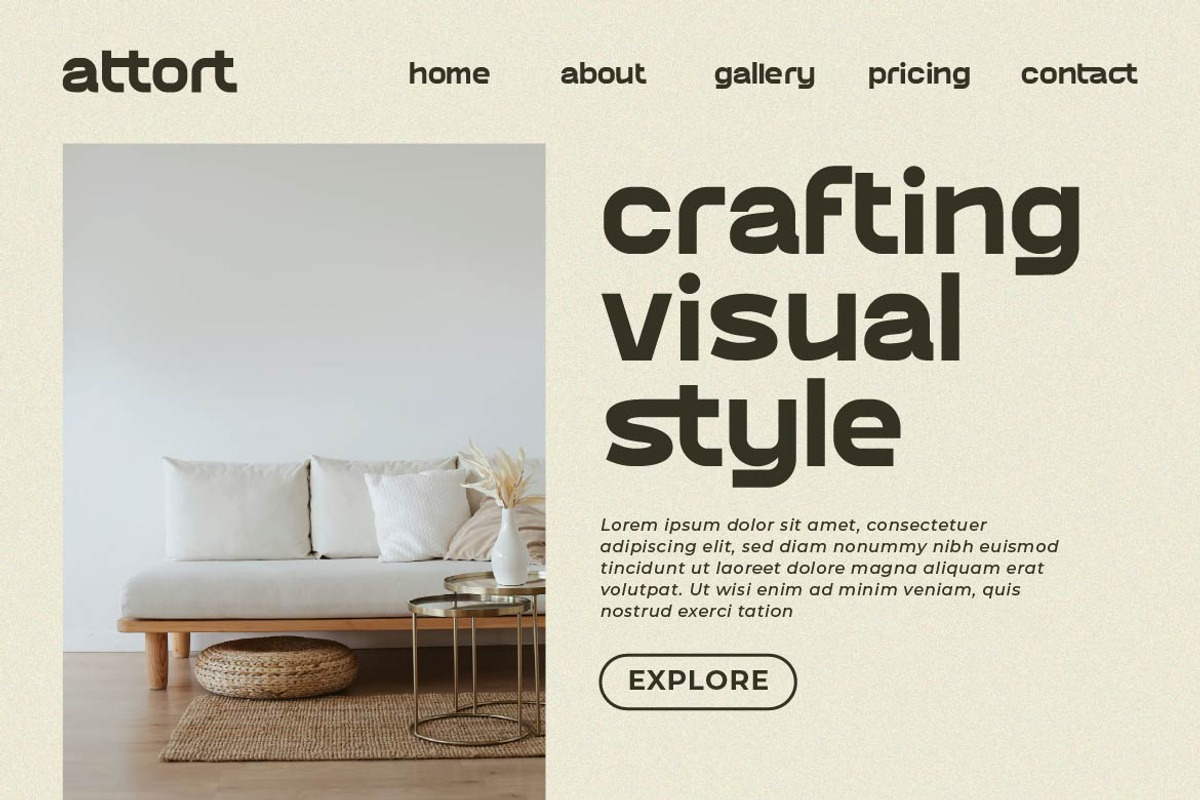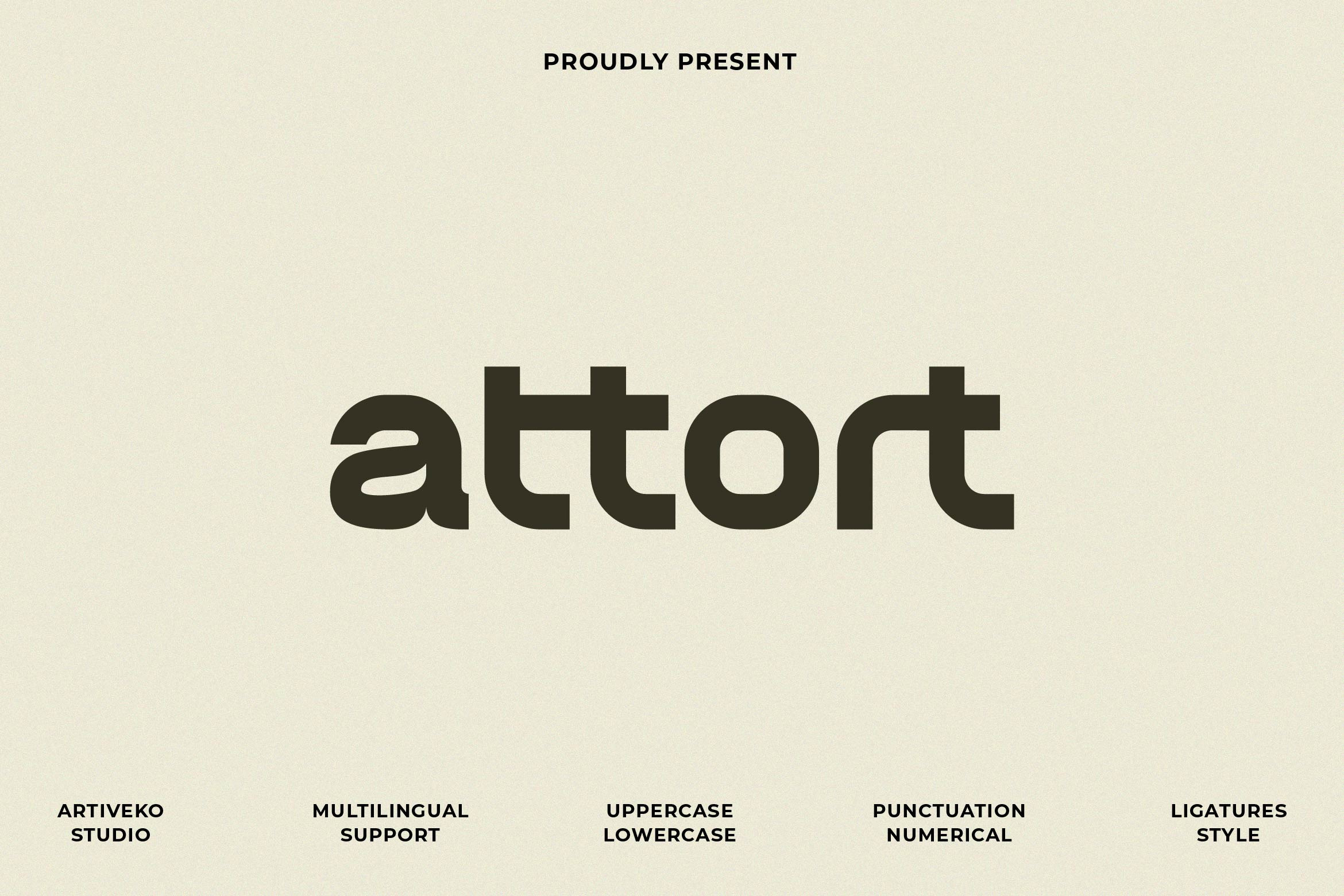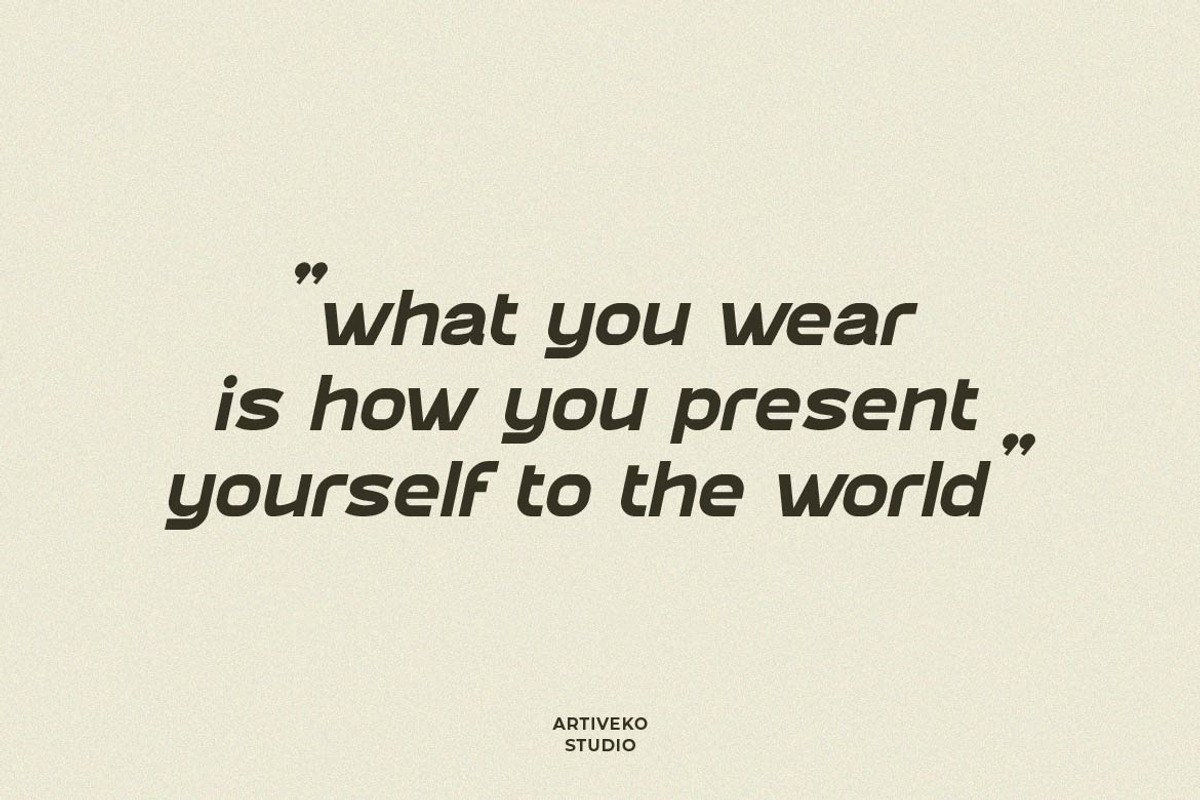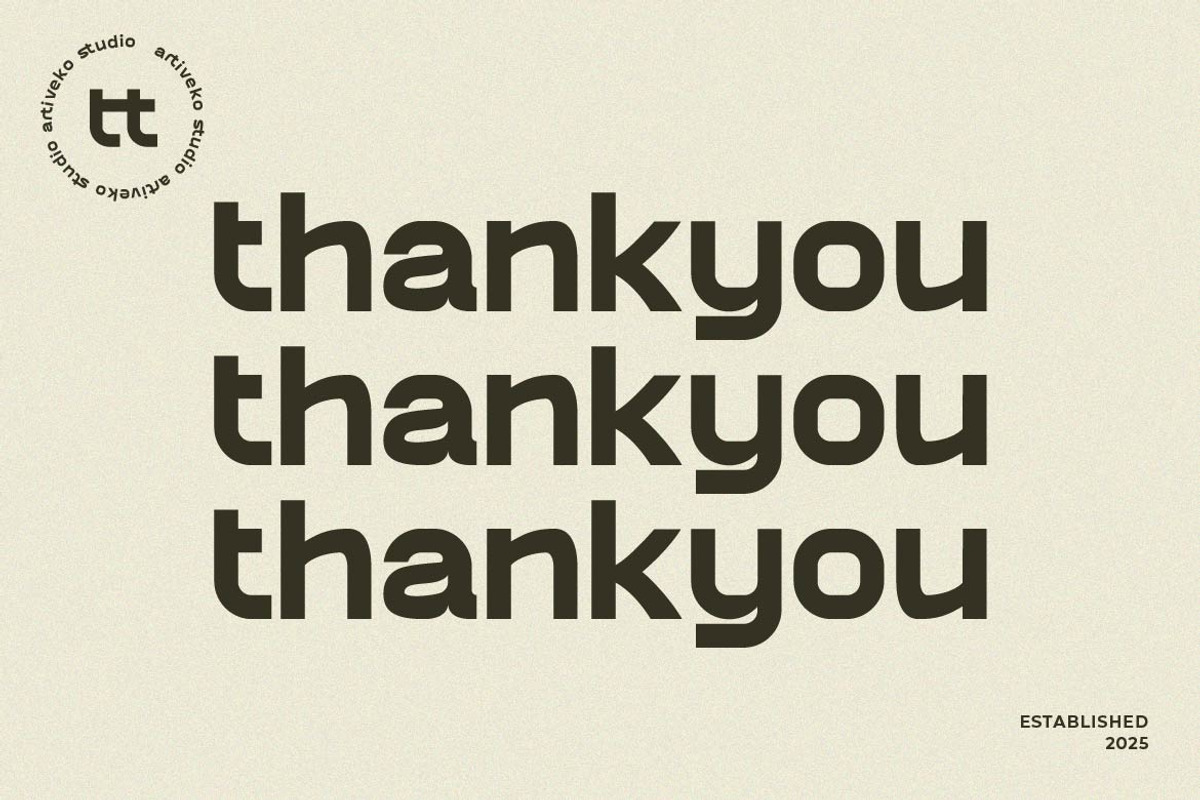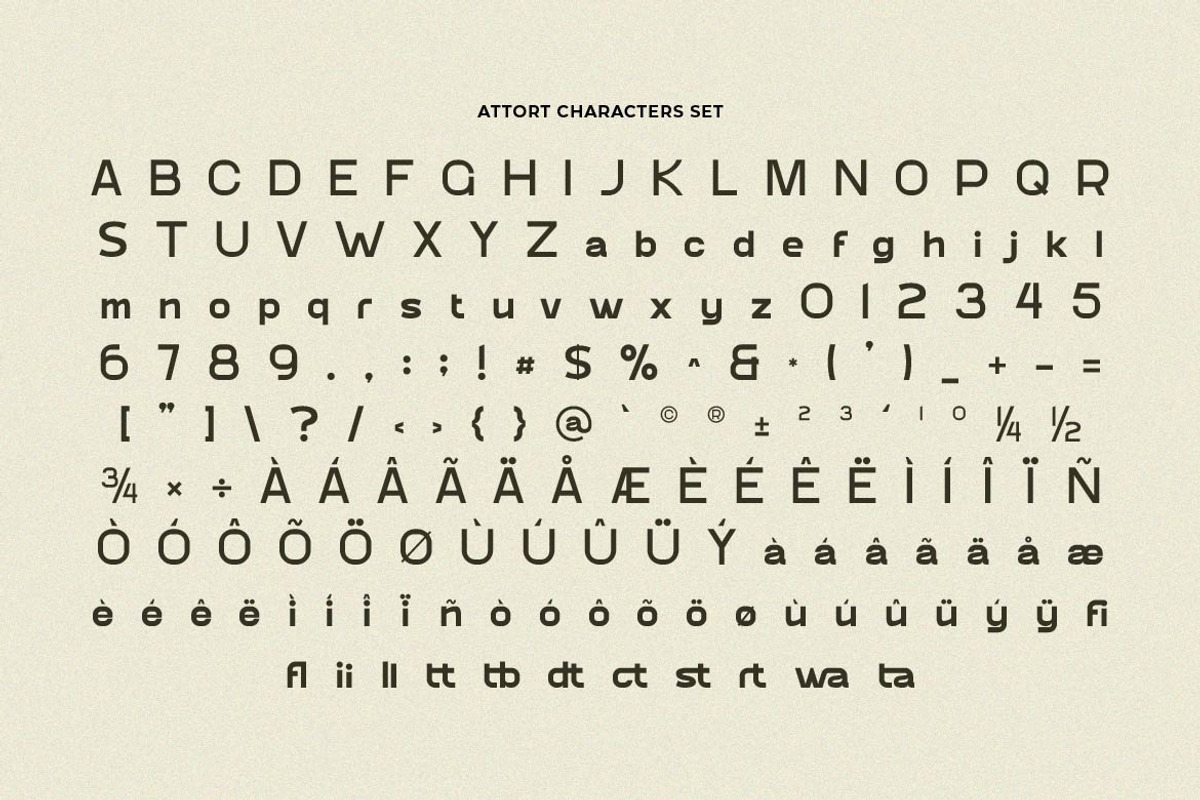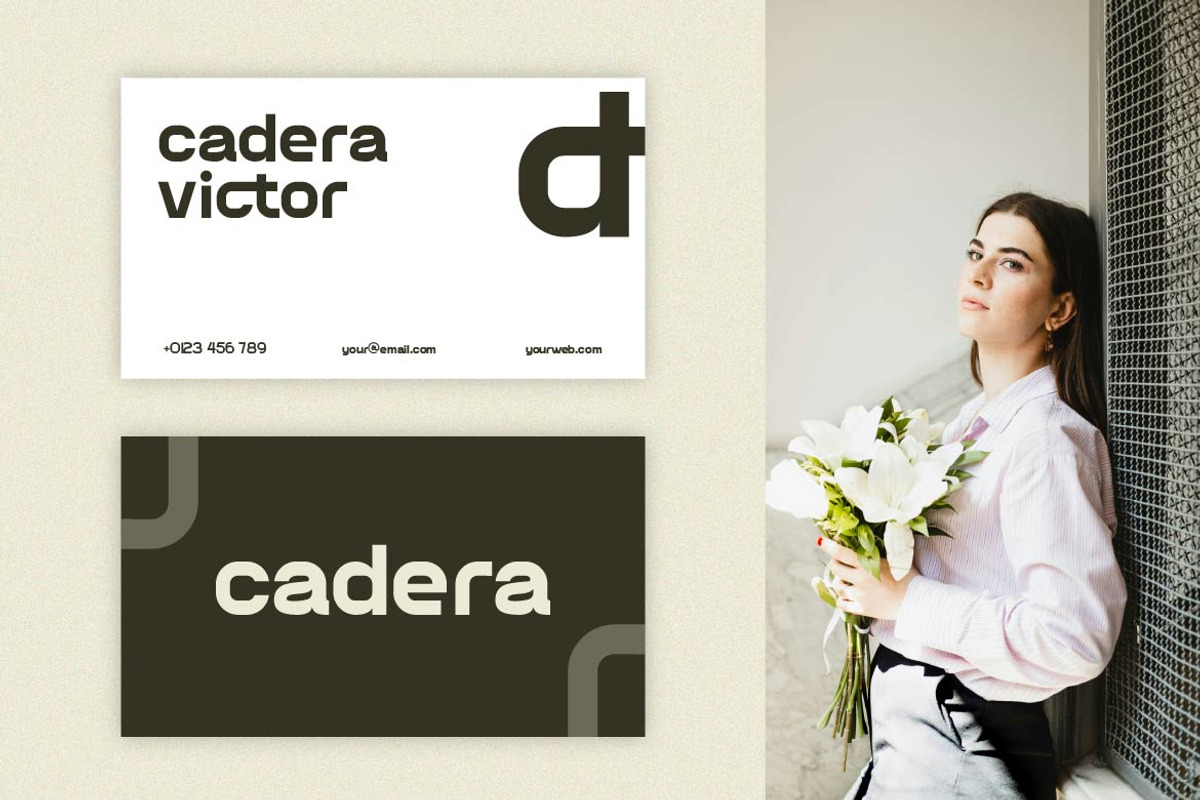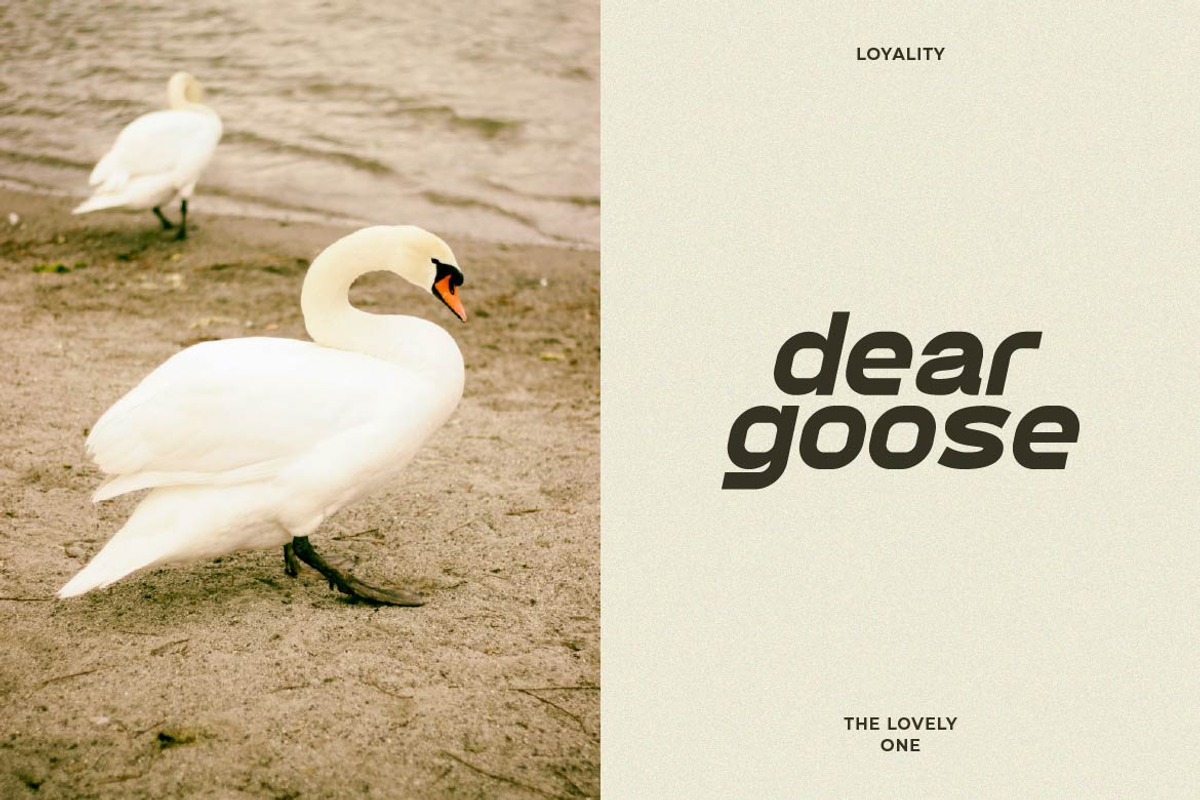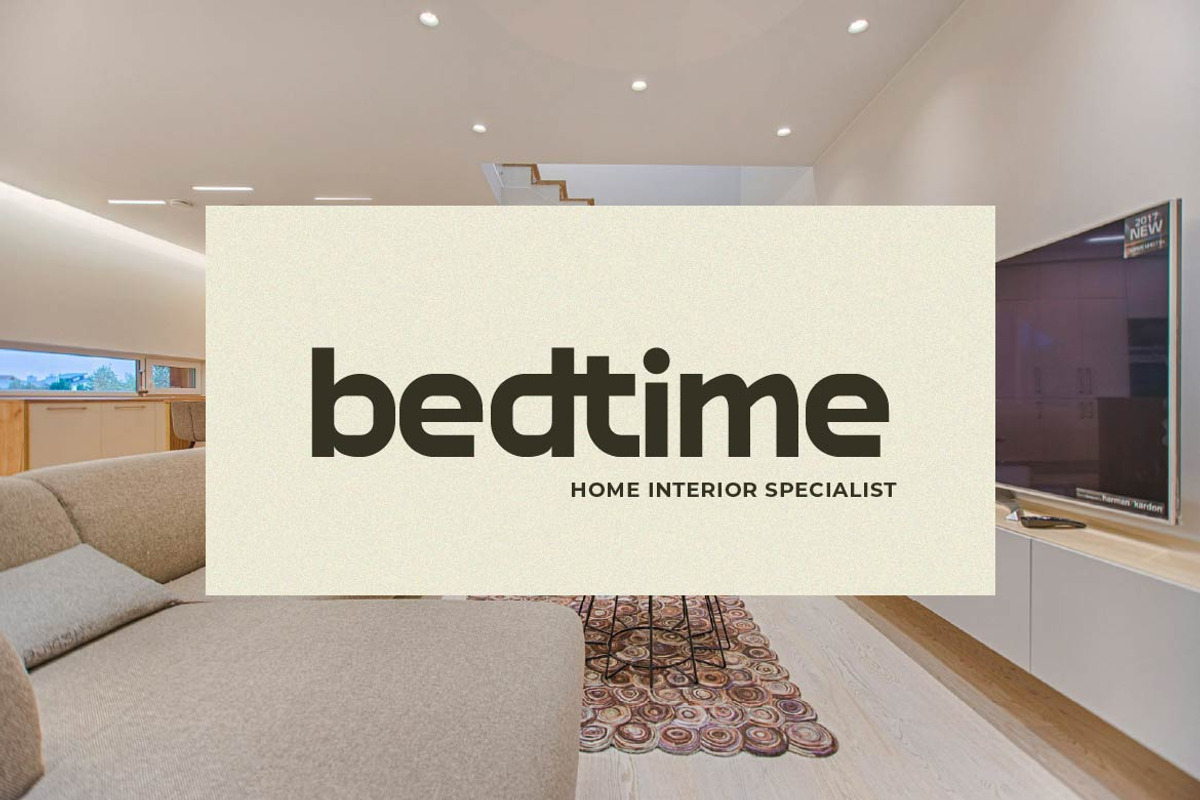
Attort Modern Elegant Font
Attort is a bold and versatile sans serif typeface crafted with precision for modern branding. With its clean geometric shapes, sharp edges, and well-balanced proportions, Attort exudes confidence and professionalism — making it the perfect choice for standout logos, corporate identities, packaging, posters, and digital content.